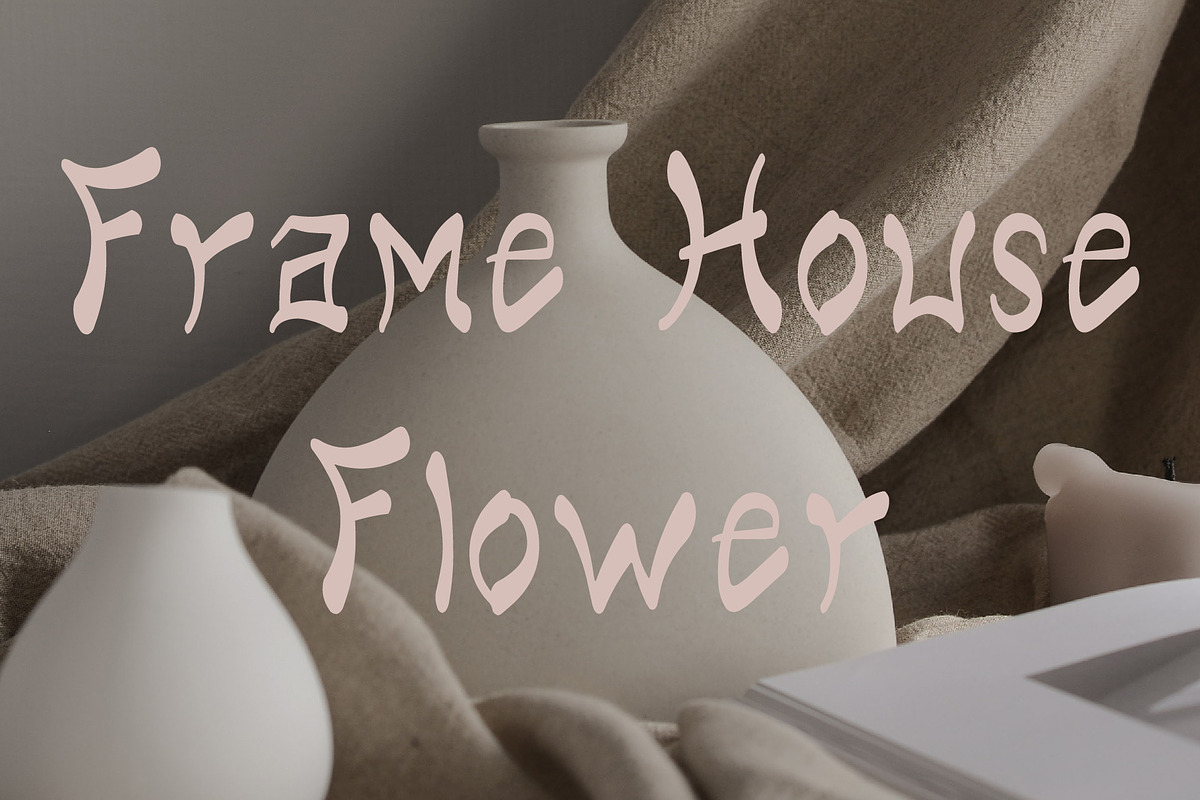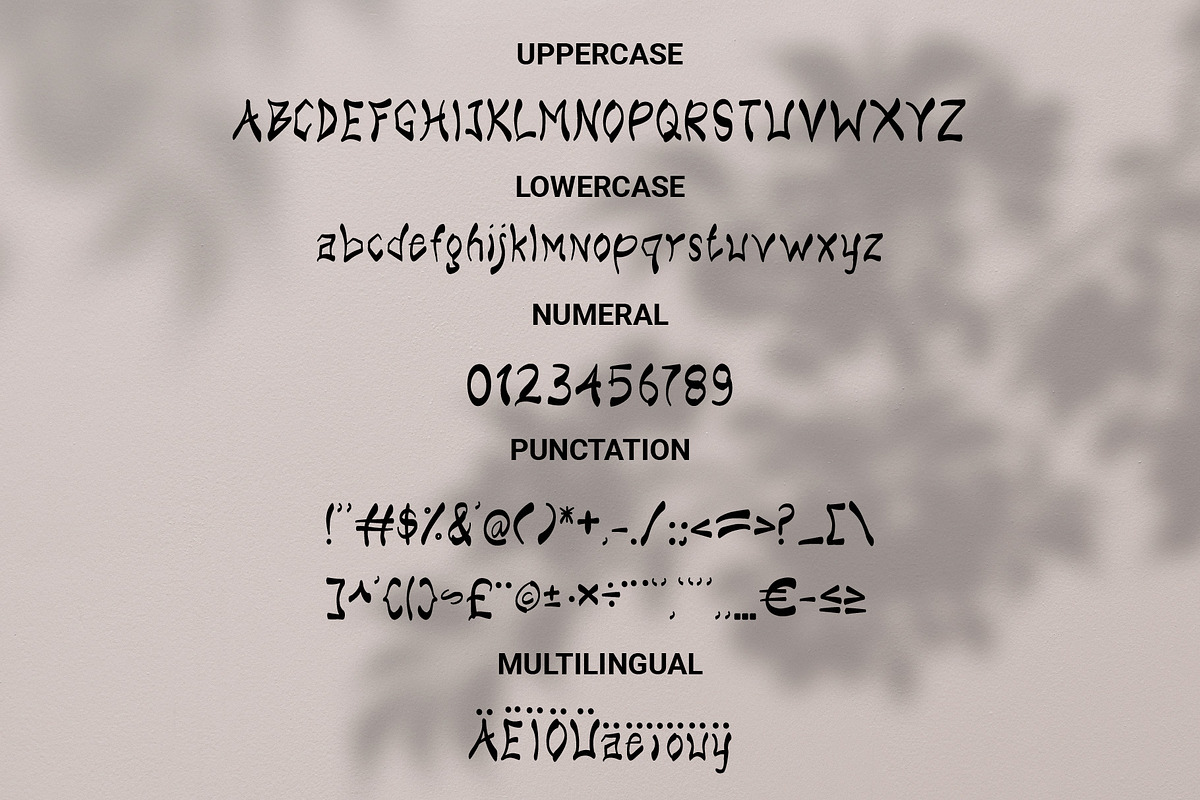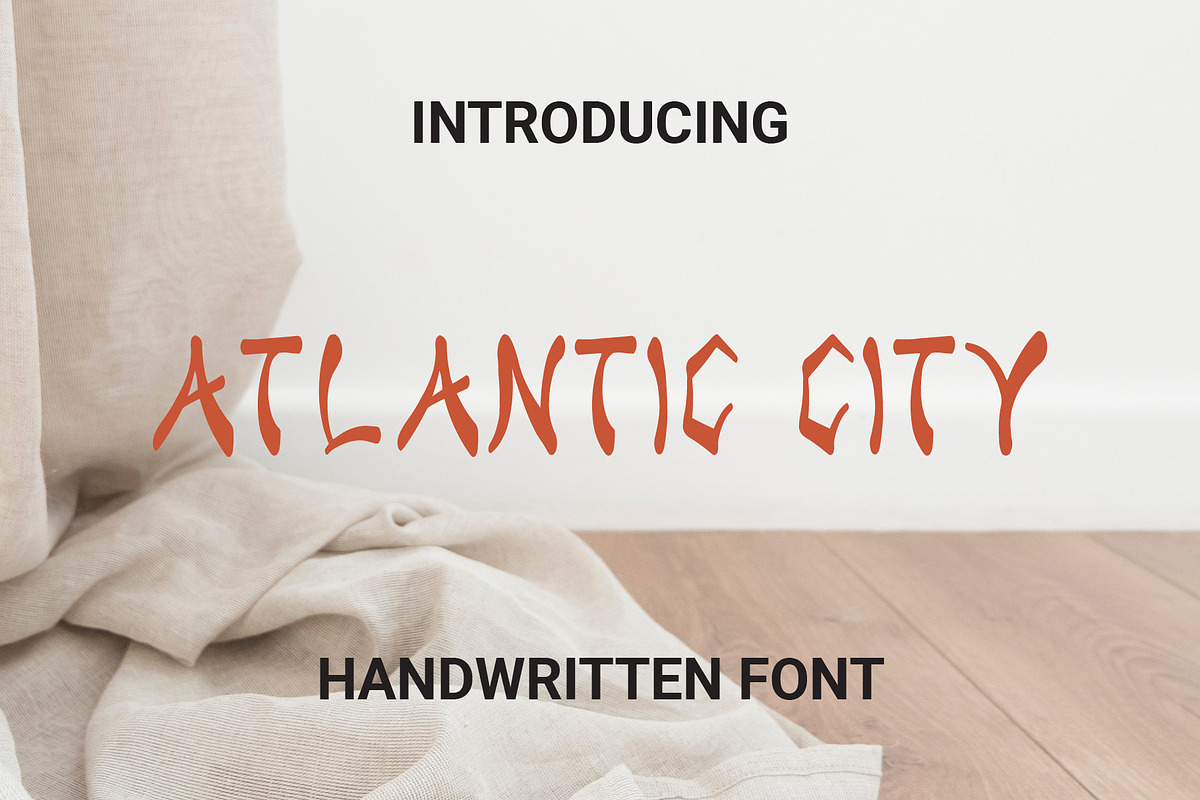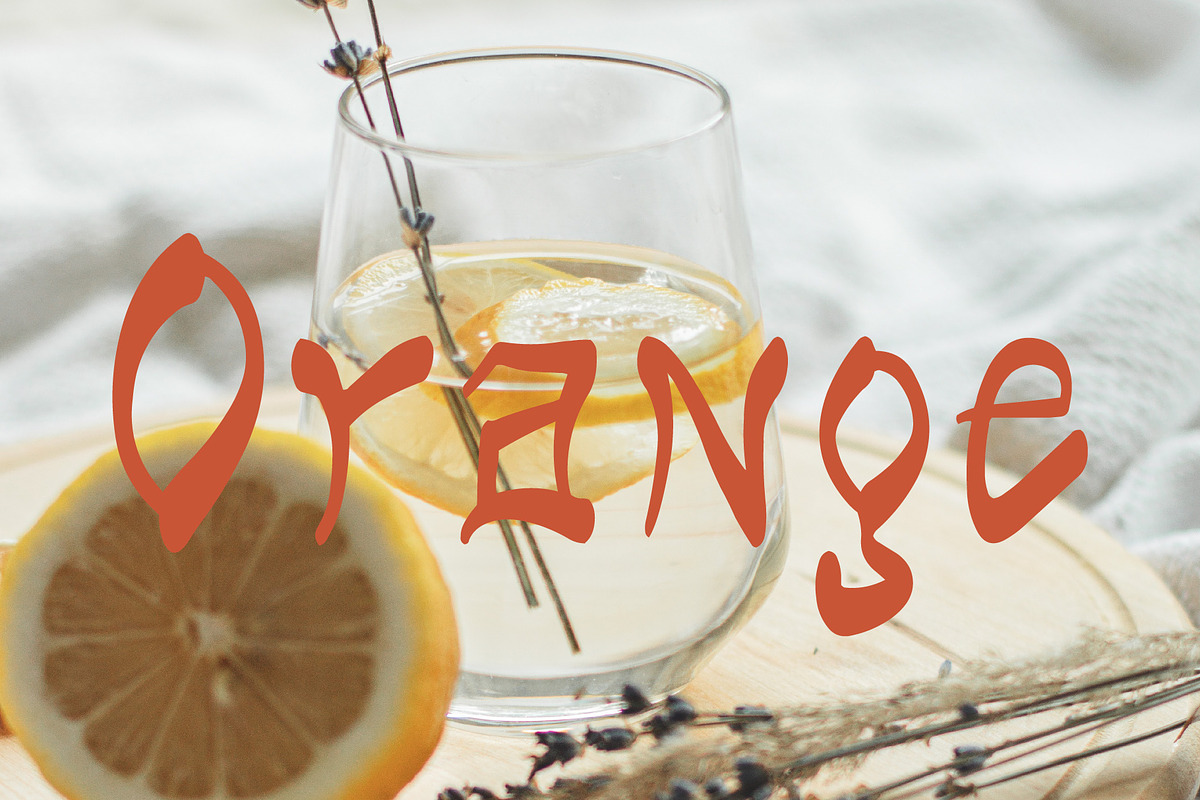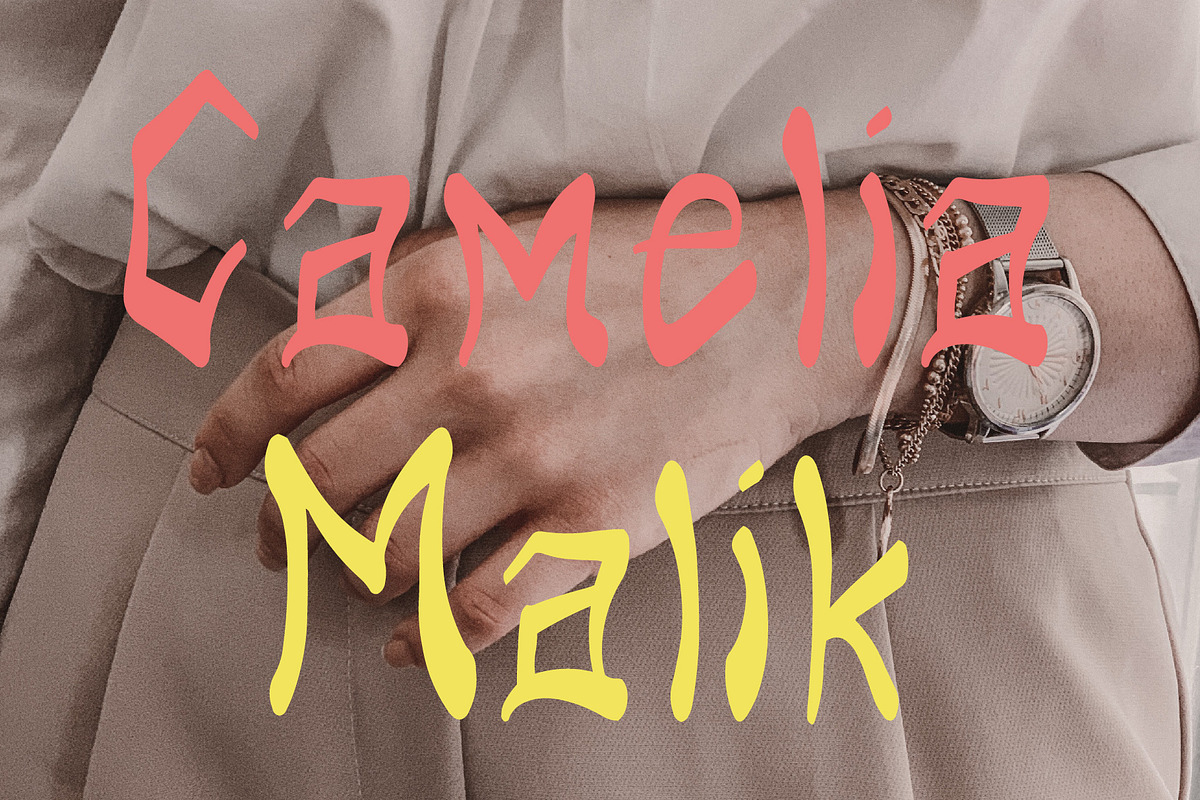
Atlantic City
Atlantic City is a mandarin style display font that gives a dynamic and elegant impression, as if we are immersed in the culture of East Asia. Add it confidently to your projects, and you will love the results.